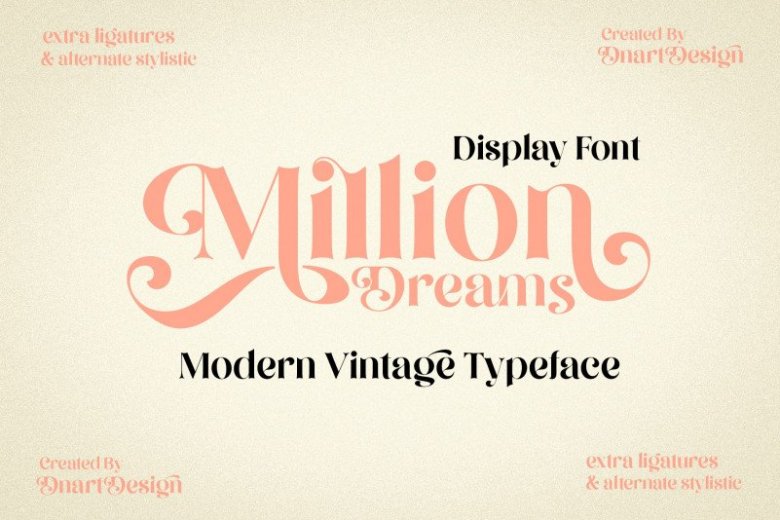
Million Dreams Font
Million Dreams Serif Font is a handmade Modern Victorian handlettering, which is combining modern and classic typography with some awesome alternates. A font that has stylistics and ligatures that will make your project stand out. This typeface consists of uppercase, lowercase, numbers, punctuation and is supported by multilingual symbols. let’s immediately solidify your project with million dreams.